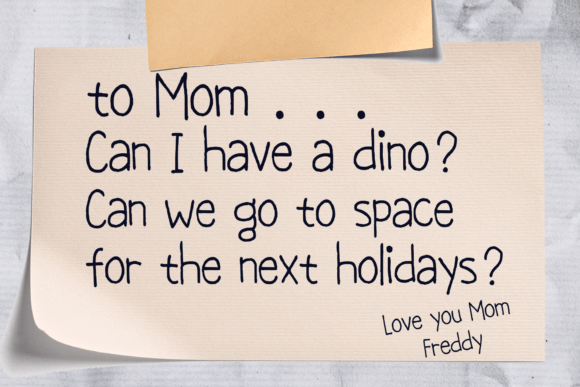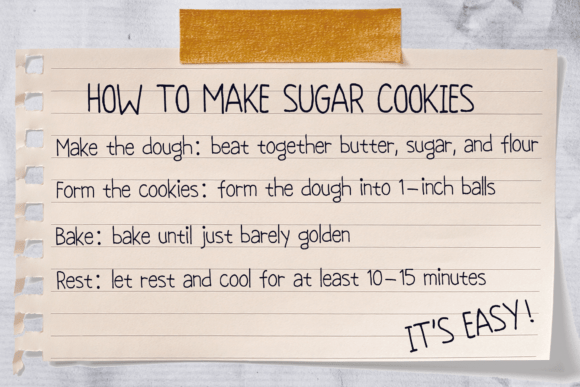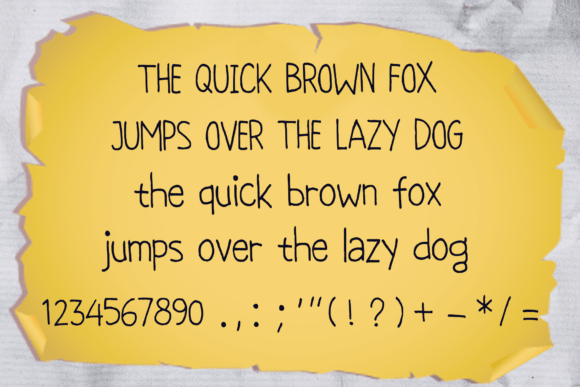
Notebook Handwriting Font
Notebook Handwriting is a versatile daily font and suitable for everyday use. It will elevate a wide range of design projects to the highest level. You can use this font for many design ideas such as stickers, t-shirt designs, amazing logo designs, magazine or book covers, comics, cartoon drawings, and many more. This font will add a super cool touch to your designs!